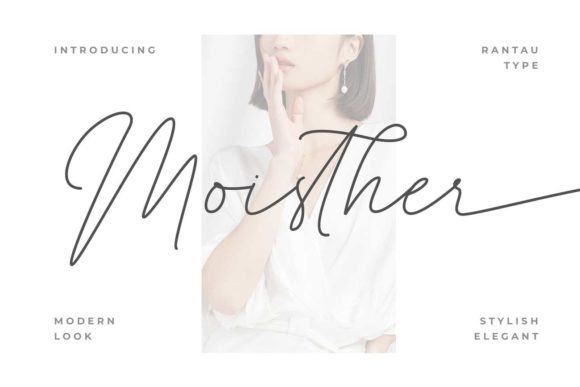
Feast your eyes on Moisther, the epitome of elegance and sophistication in the realm of script fonts. This captivating creation by RantauType exudes professionalism and class, leaving an indelible mark on your designs.
With its carefully crafted curves and impeccable details, Moisther elevates your projects to new heights. Its luxurious and modern aesthetic is sure to turn heads, making it the perfect choice for those seeking a font that radiates elegance and refinement.
Moisther's versatility knows no bounds. Whether you're crafting a business book, designing a stunning signature logo, or creating eye-catching quotes, this font effortlessly adapts to your vision. Its readability and stylish charm ensure that your messages are conveyed with clarity and impact.
Picture this: your business book adorned with Moisther's graceful letters, captivating readers from the very first page. Your photography adorned with Moisther's elegant watermark, adding a touch of sophistication to your visual masterpieces. Your signature transformed into a work of art, exuding confidence and creativity.
With Moisther, the possibilities are endless. Unleash your imagination and let this font ignite your designs. Experience the joy of creating projects that exude luxury, modernity, and timeless beauty.
Included in this remarkable font family are standard characters, numerals, functional symbols, ligatures, and alternates. You'll have everything you need to bring your creative visions to life, leaving a lasting impression on your audience.
So why settle for ordinary when you can embrace the extraordinary? Embrace Moisther today and embark on a journey of design excellence. Let your projects shine with sophistication and elegance, captivating hearts and leaving a lasting legacy of beauty.